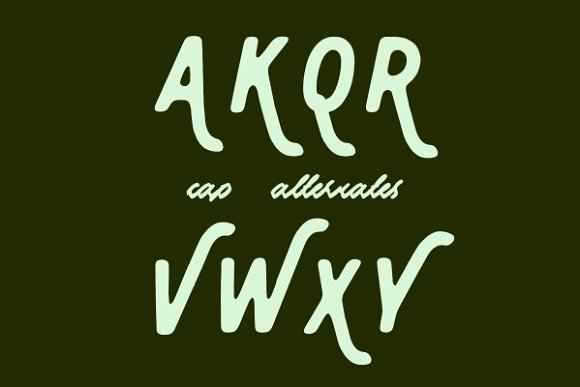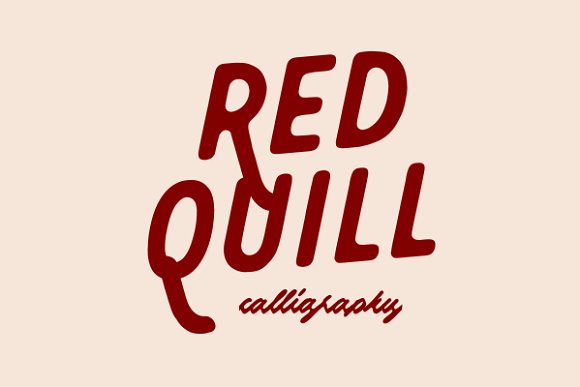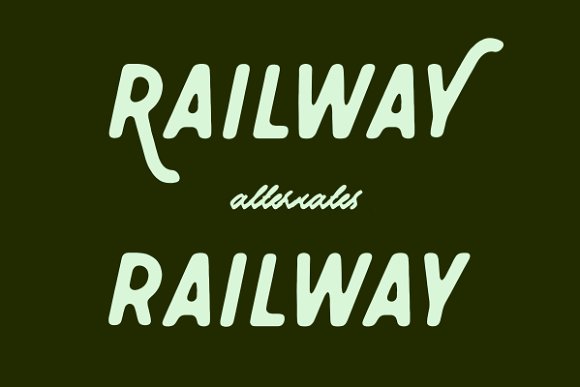
Introducing Ale Ligs Font: A Versatile Ligatured Marvel
Ah, the quest for the perfect font. I’ve been there, done that, and got the t-shirt (which, coincidentally, was designed with a font that didn’t quite live up to expectations). As a designer, I’ve spent countless hours scrolling through font libraries, searching for that one special typeface that brings a project to life. And then, there are those projects where a font just clicks, and you know it’s the one. For me, Ale Regular was one of those fonts. Its clean lines and classic feel made it a staple in my design toolkit. But, as with all things, I wanted to push it further. Thus, Ale Ligs was born – an adaptation of Ale Regular, but with a twist: ligatures.
A Personal Story: The Evolution of Ale Regular
I still remember the first time I used Ale Regular. I was working on a branding project for a local coffee shop, and I needed a font that was both elegant and approachable. Ale Regular fit the bill perfectly. Its simple, yet sophisticated design made it an instant hit with my clients. Fast forward a few years, and I started to notice that many of my fellow designers and crafters were using Ale Regular in their projects. It was a testament to the font’s versatility and timeless appeal.
What I Love About Ale Ligs Font
- ✨ Versatility: Ale Ligs is designed to be versatile. Whether you’re working on a branding project, a craft, or a hobbyist endeavor, this font adapts seamlessly.
- ✅ Ligatures on Demand: The inclusion of ligatures adds a touch of elegance and sophistication to your text. And the best part? They’re easy to turn on and off.
- 💻 Cross-Platform Compatibility: Ale Ligs works beautifully across various platforms and design software, making it a reliable choice for any project.
Honest Review: The Not-So-Perfect Ale Ligs
While Ale Ligs is a robust and feature-rich font, there are a few quirks to be aware of:
- 🤔 Ligature Limitations: While the ligatures are a fantastic feature, there might be instances where they don’t fit perfectly with your design. A little creativity and manual adjustment can usually solve this.
- ⚠️ Weight Considerations: Ale Ligs, like Ale Regular, comes in a few weights. While this is generally a good thing, it’s worth noting that some weights might not be suitable for very small or very large text sizes.
Backstory: The Inspiration Behind Ale Ligs
The journey from Ale Regular to Ale Ligs was inspired by a desire to enhance versatility and add a touch of elegance to an already beloved font. Seeing how Ale Regular was used across various projects and by different designers sparked the idea to introduce ligatures, making the font even more appealing and functional.
Q: Is Ale Ligs suitable for body text?
A: Absolutely! Ale Ligs is designed to be readable and elegant, making it suitable for both headings and body text.